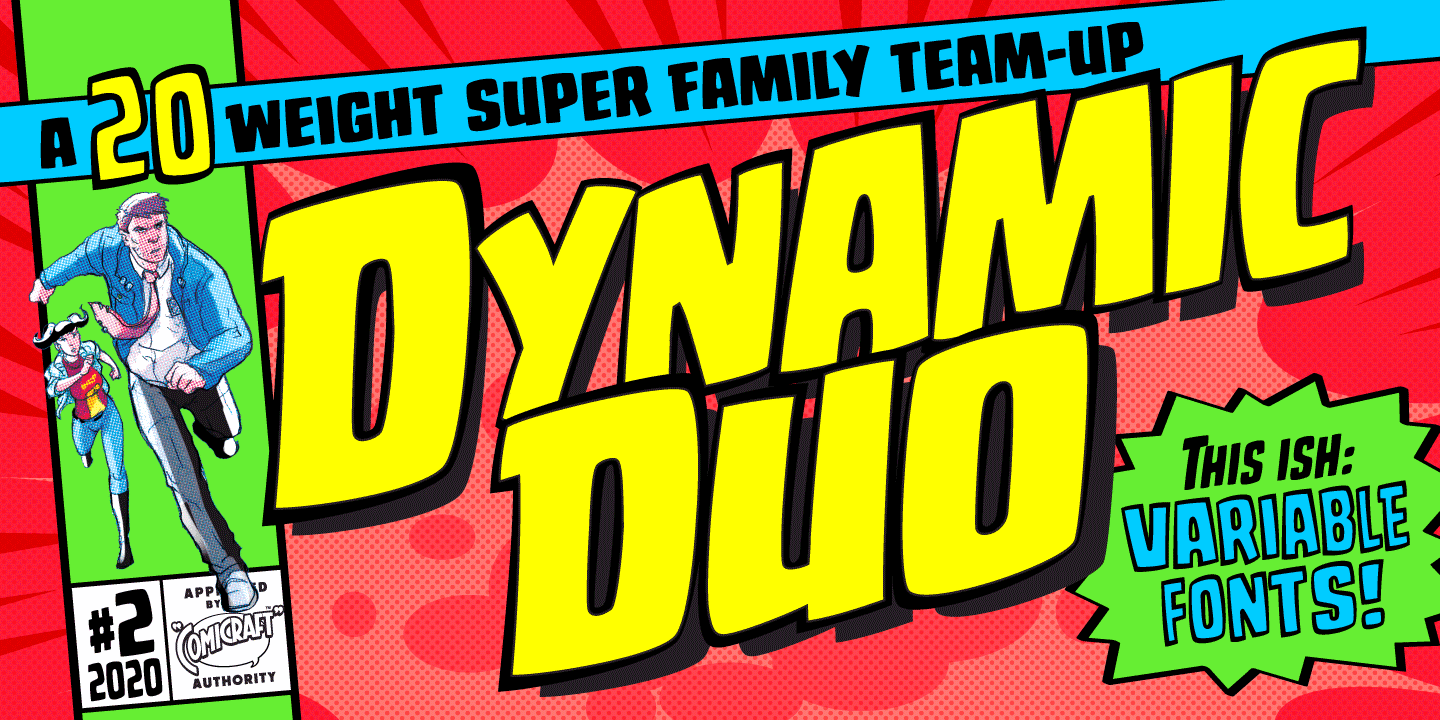
Dynamic Duo Font excels in numerous design applications including sports branding, action movie posters, gaming logos, fitness marketing, youth advertising, comic book design, superhero themes, entertainment graphics, dynamic headlines, and high-energy promotional materials. Its powerful character makes it perfect for brands targeting active audiences and creating memorable visual impact.
What makes Dynamic Duo Font so exciting is its exceptional energy and commanding presence, featuring bold strokes, dynamic angles, and powerful letterforms that create immediate visual impact while maintaining excellent readability. The font's energetic design conveys strength and action, making it ideal for brands seeking to establish powerful positioning and emotional excitement.
The Dynamic Duo Font family includes multiple stylistic variations: Regular, Bold, Black, Outline, Shadow, and 3D versions, plus decorative elements and alternative character sets. Each family member maintains consistent dynamic energy while offering different visual treatments, providing designers with comprehensive options for high-impact typographic compositions.
This exceptional typeface represents the perfect fusion of action-oriented design and contemporary functionality, making Dynamic Duo Font Free Download an essential tool for energetic brand communications. The font's powerful characteristics work exceptionally well in entertainment industries where excitement, energy, and visual drama are crucial considerations.
Dynamic Duo Font supports extensive character sets including international languages, comprehensive punctuation, and special symbols, ensuring creative flexibility for global action brands. Its optimized spacing and bold construction maintain readability while preserving the distinctive powerful character that defines its dynamic appeal.
Professional designers choose Dynamic Duo Font for its ability to create memorable brand identities and high-energy visual communications. The font's action-oriented nature makes it particularly effective for sports teams, gaming companies, entertainment brands, and fitness organizations where energy and excitement are essential.
The font's dynamic power and contemporary versatility make it particularly suitable for sports clubs, action movie studios, gaming developers, fitness centers, and adventure brands. Its energetic appeal ensures designs remain impactful and memorable across changing entertainment trends.